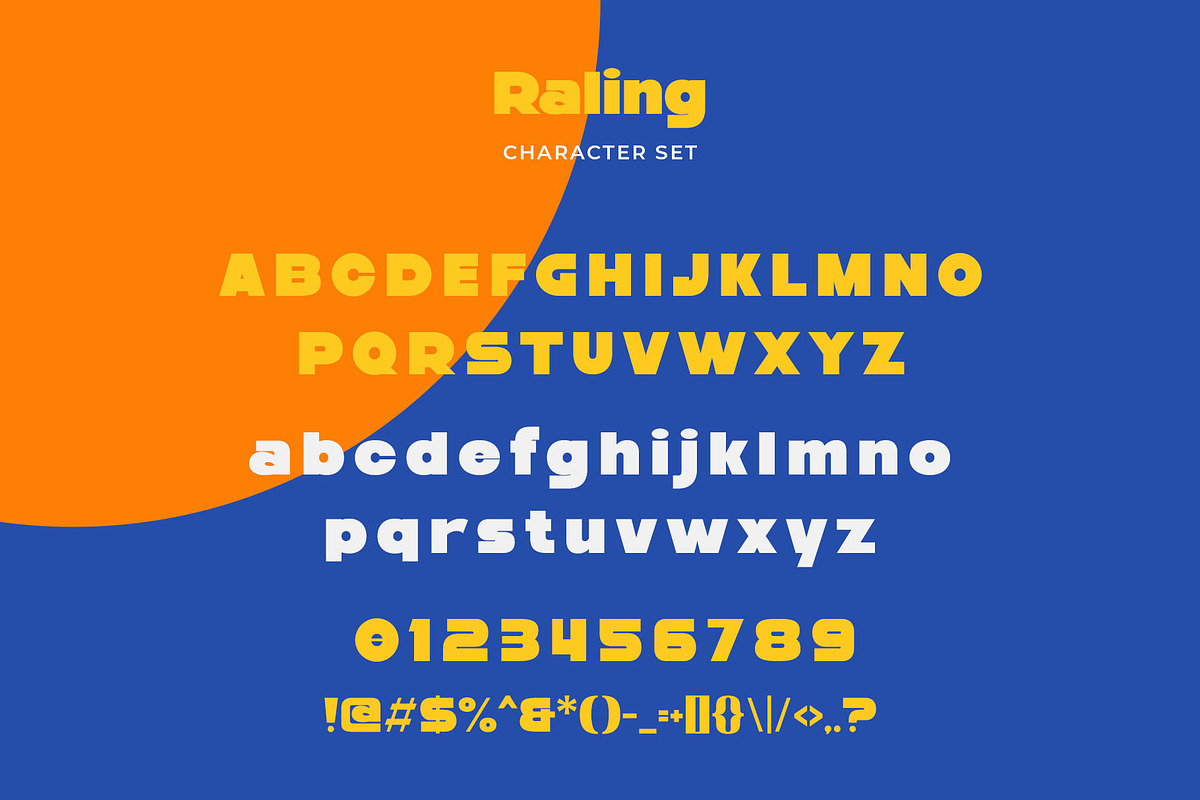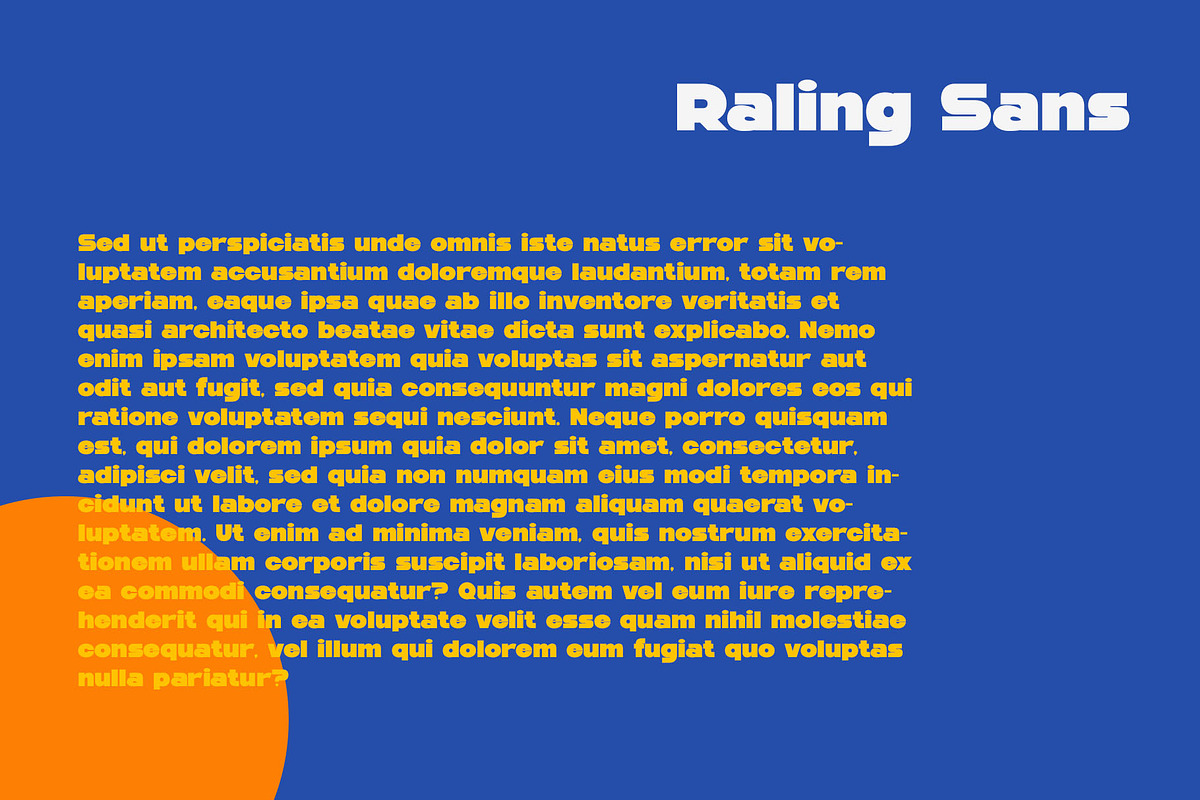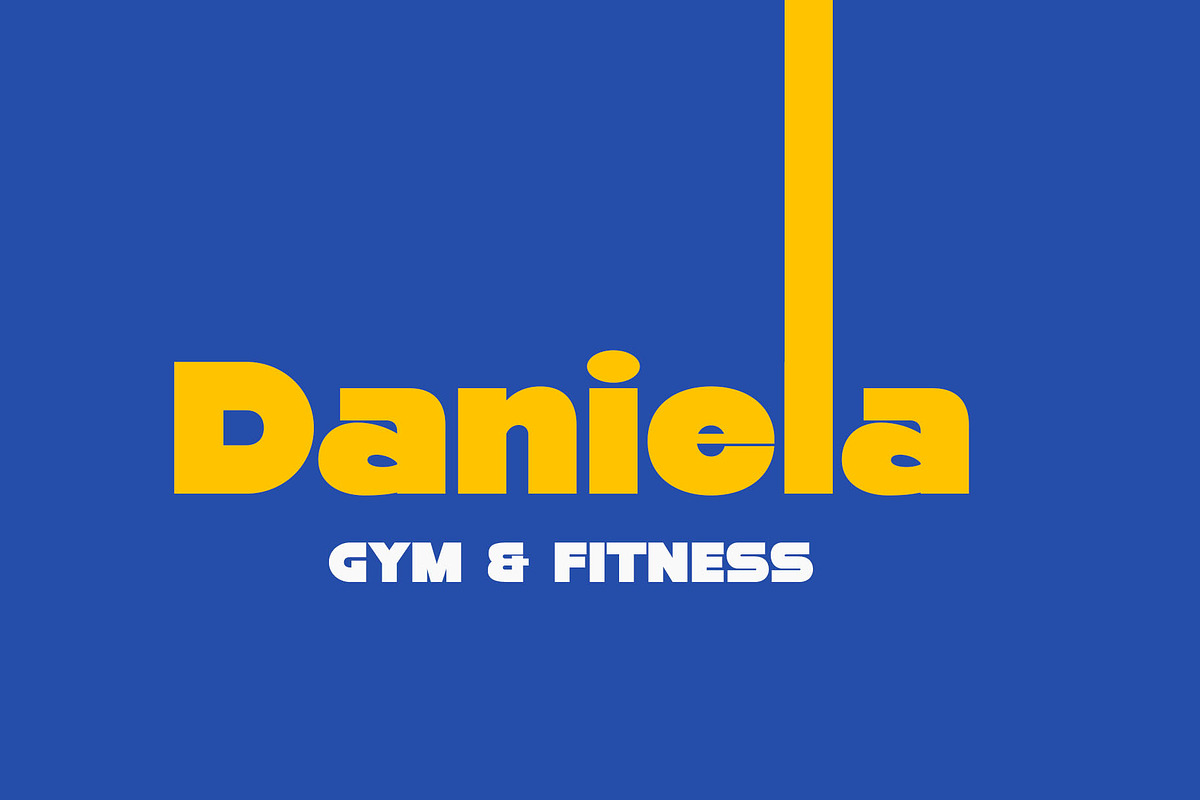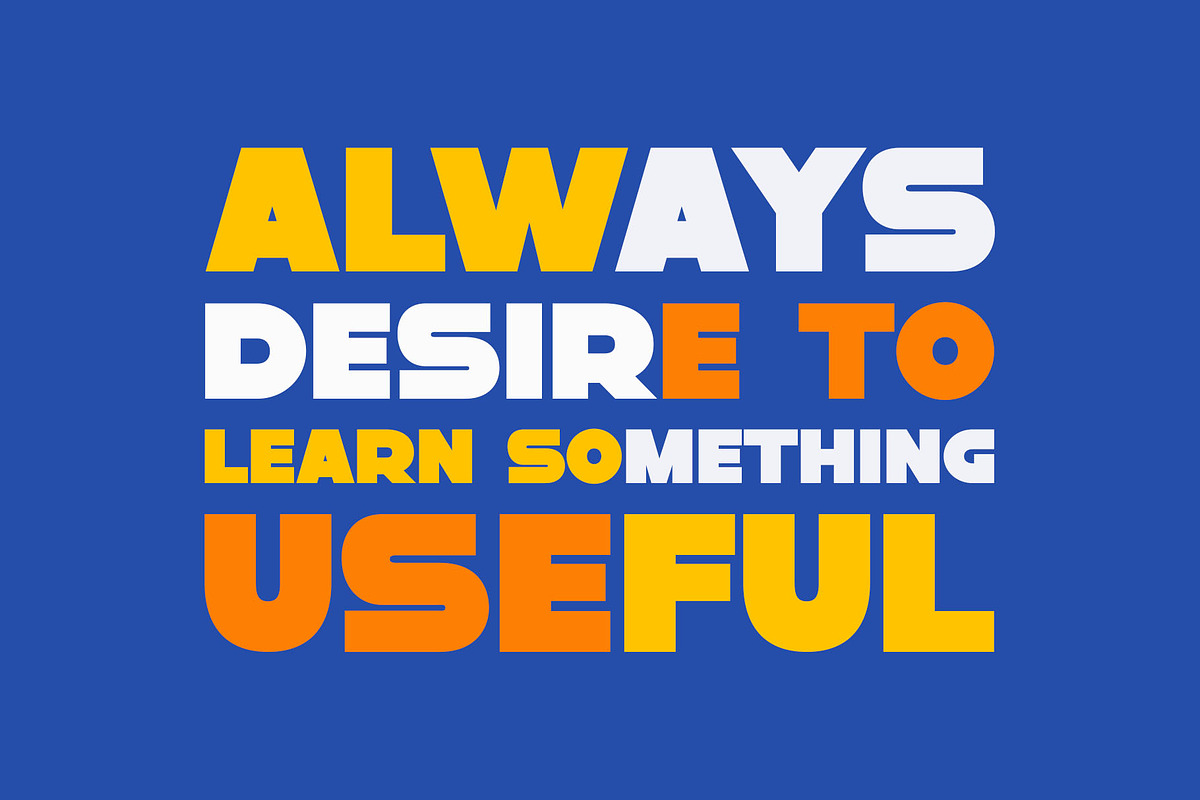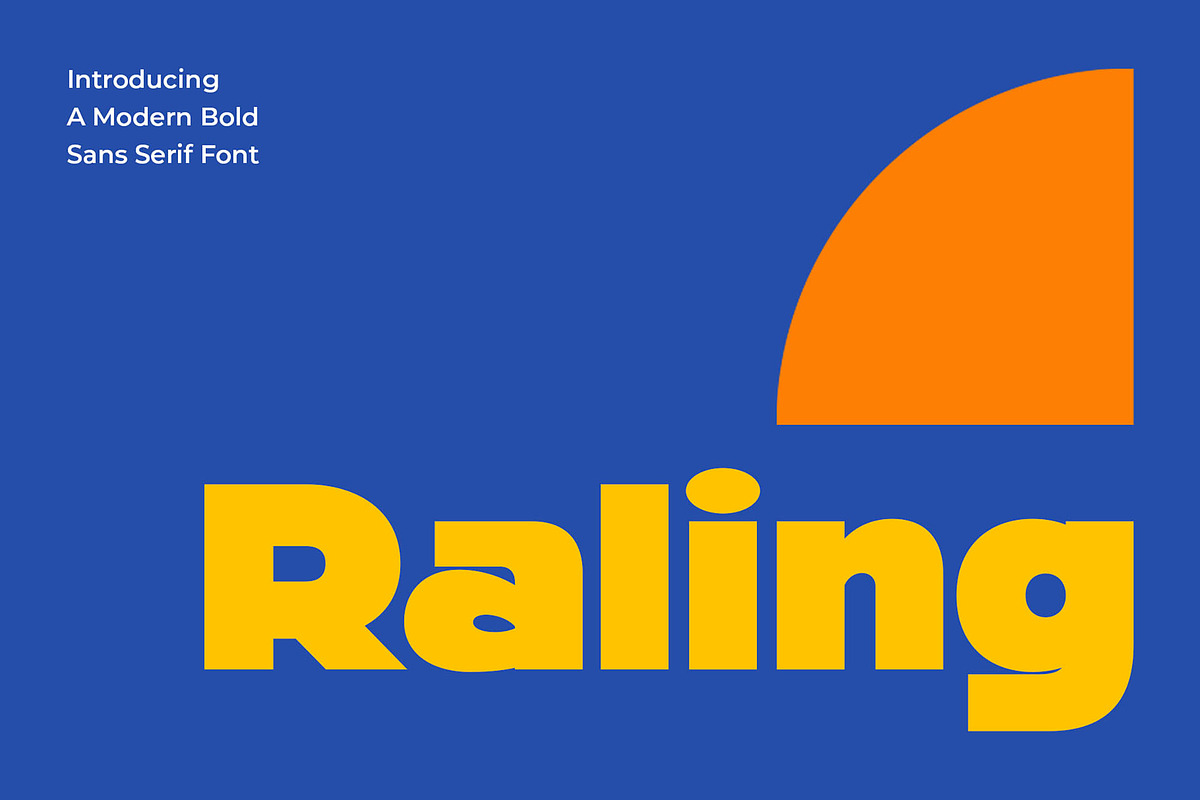
Raling - A Display Bold Sans Serif
Introducing our new Raling, modern sans serif font with elegant style this is perfect for branding, logos, invitation, magazines, product packaging and more.